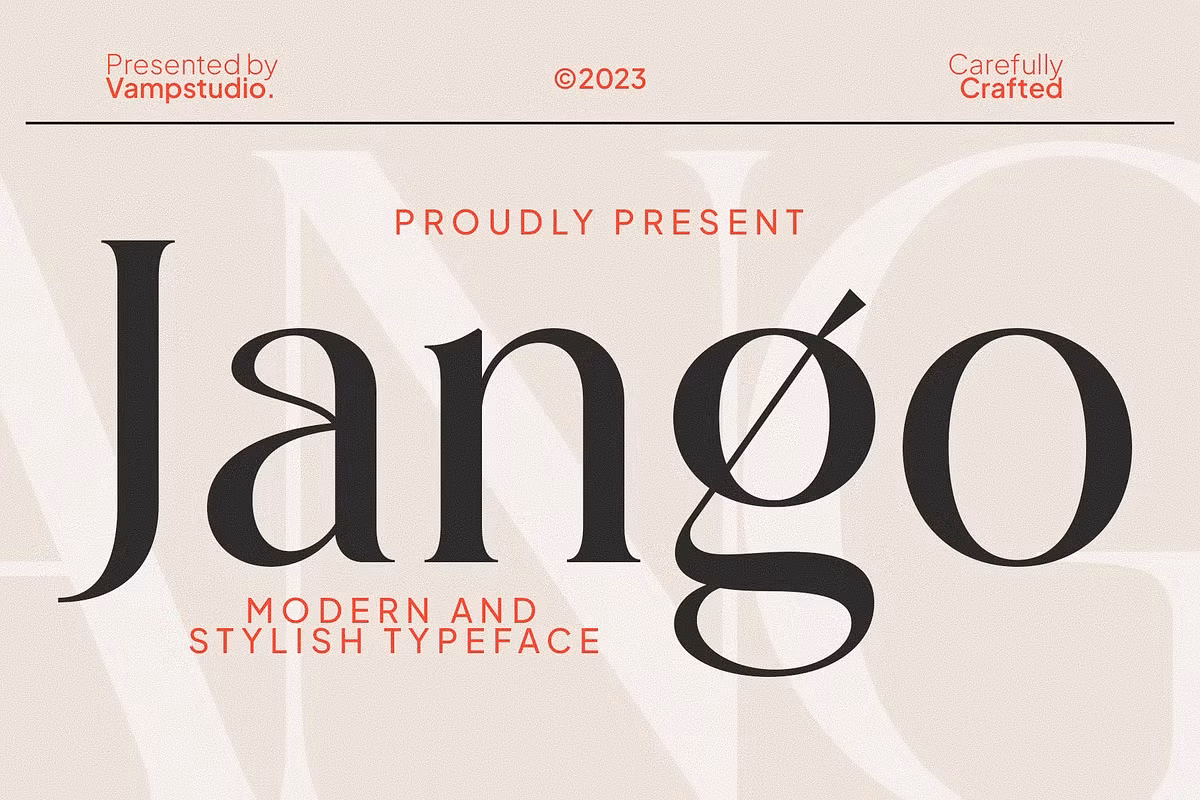
Jango Modern Serif Font Free Download
Please note, you must purchase this font for commercial use. However, you can easily download Jango Modern Serif Font Free Download for personal use and testing purposes. Jango Modern Serif Font is a sophisticated and contemporary serif typeface designed to bring a sleek and professional feel to your projects. With its clean lines and sharp edges, this font is perfect for modern branding, editorial layouts, headlines, logos, and more. Whether you're working on a luxury brand identity, a professional magazine spread, or any design that requires both elegance and readability, Jango Modern Serif Font Free Download will add a refined, stylish touch. Download Jango Modern Serif Font Free Download today and explore its potential before opting for a commercial license.